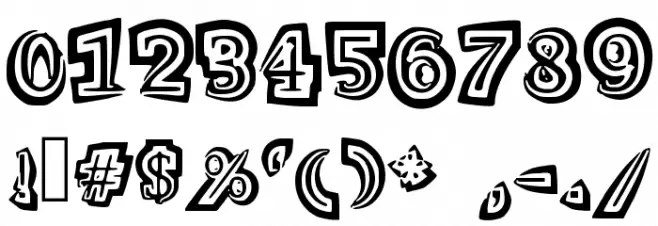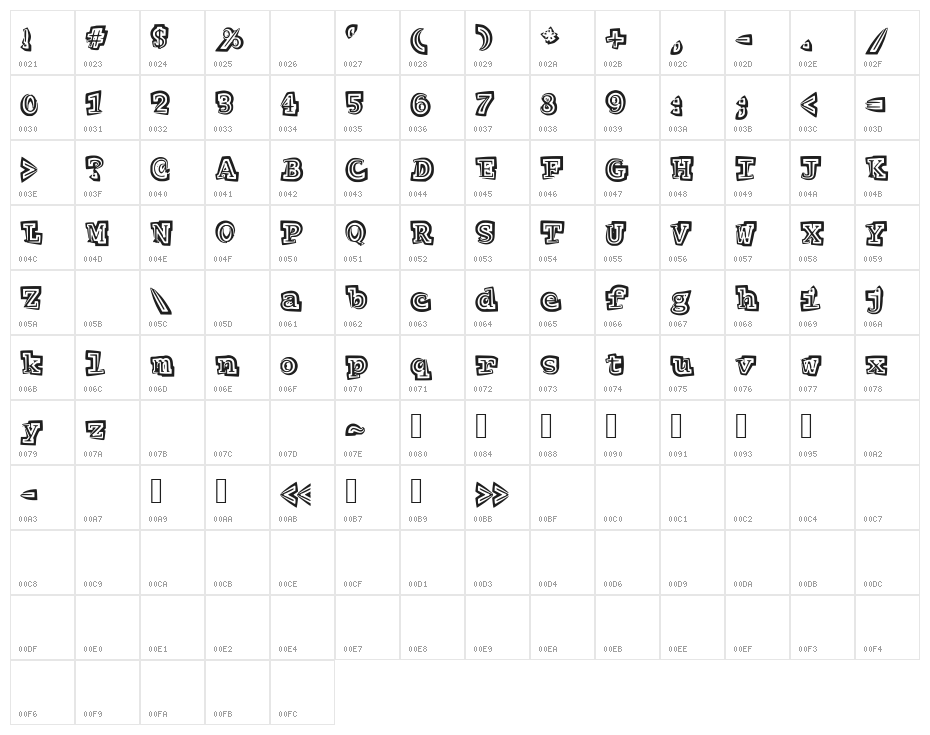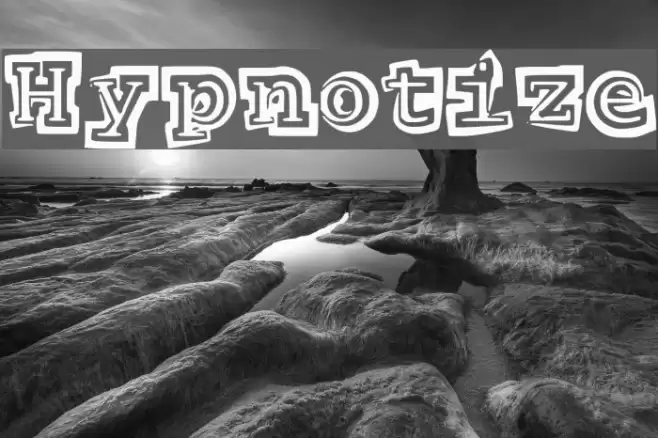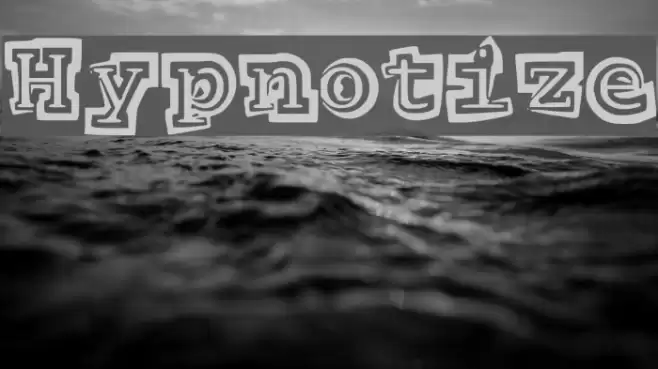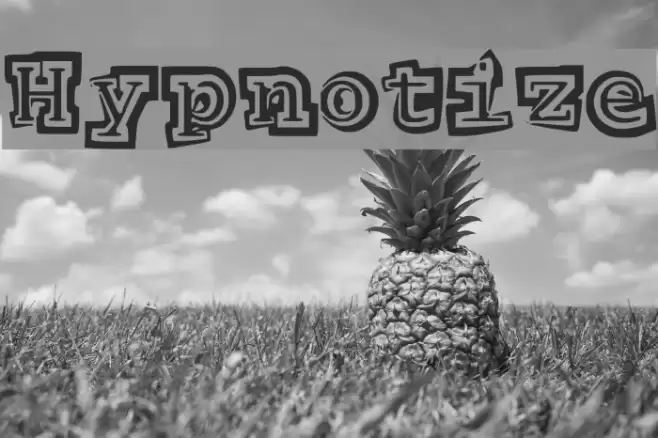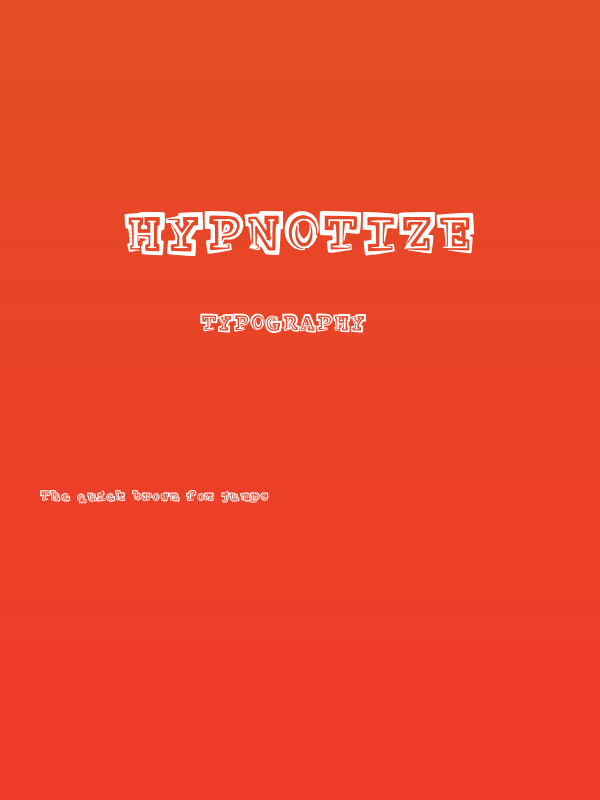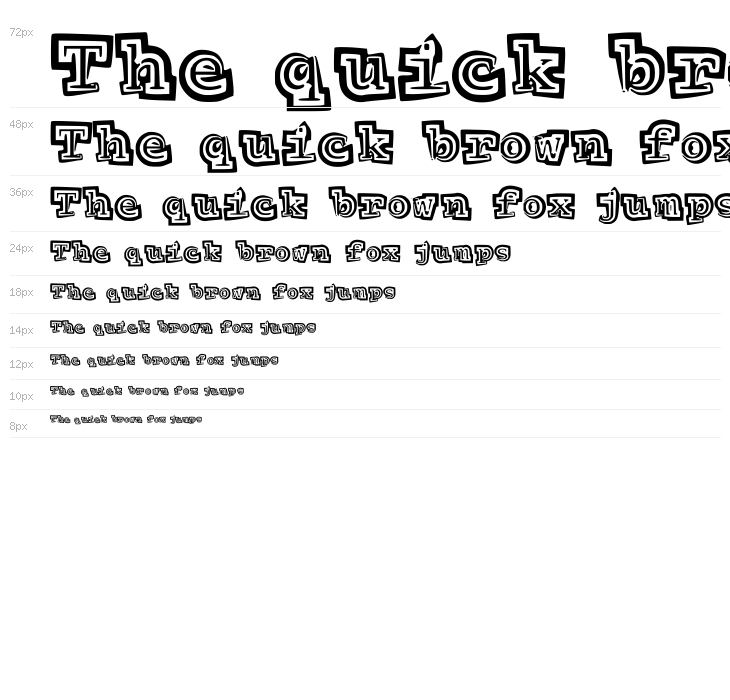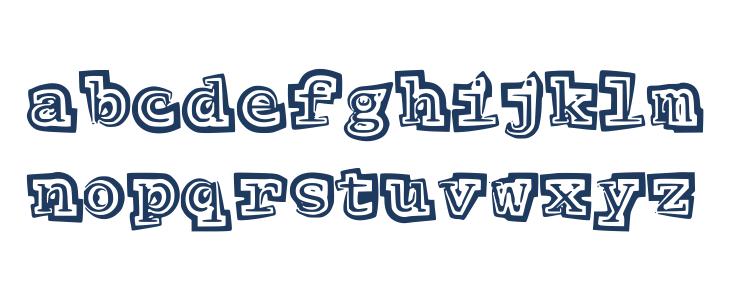
Hypnotize Font
Hypnotize Description
This font features a bold and playful design with a distinct 3D shadow effect that gives each character a sense of depth and movement. The letters are uppercase and lowercase, with a slightly irregular, hand-drawn style that adds a whimsical touch. The numbers and special characters maintain the same lively and dynamic appearance, making the font suitable for eye-catching designs. The thick outlines and shadowing create a strong visual impact, perfect for projects that require a fun and engaging aesthetic.
Overall StylePlayful, Whimsical
Proposed ProjectsIdeal for children's book covers, playful posters, party invitations, and creative branding.